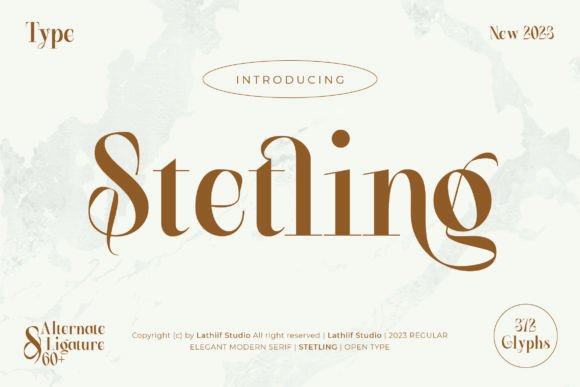
Introducing Stetling - the Modern Serif Font Family That Will Transform Your Designs
Unleash the elegance and beauty of Stetling, a modern serif typeface that exudes sophistication and grace. Each character is meticulously crafted with delicate curves and refined details, lending an air of timeless charm to your designs. Its versatility extends from captivating cover letters to stunning logos, transforming your words into works of art.
Unlock Your Creative Potential with Stetling
With Stetling, your designs will command attention and leave a lasting impression. The alternative characters, divided into Stylistic Sets, Stylistic Alternates, and Ligature, provide endless possibilities for customization, allowing you to create unique and captivating designs.
Experience Seamless Compatibility
A Font for Every Occasion
Whether you're crafting a captivating cover letter, designing a memorable logo, or creating stunning invitations, Stetling is the perfect choice. Its multilingual support makes it suitable for projects in multiple languages, expanding your creative horizons.
Embrace the Simplicity of Stetling
Elevate Your Projects with Stetling
Stetling is more than just a font; it's an investment in your creative endeavors. Its timeless beauty and versatility will elevate your designs and help you achieve stunning results.
Experience the Elegance and Grace of Stetling Today!